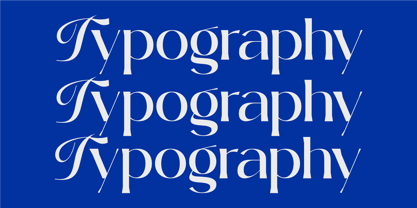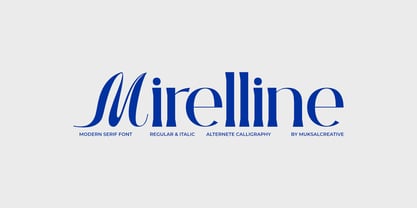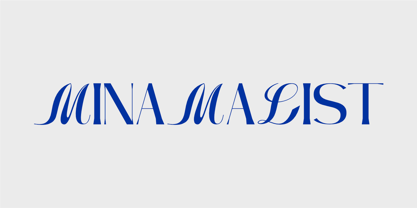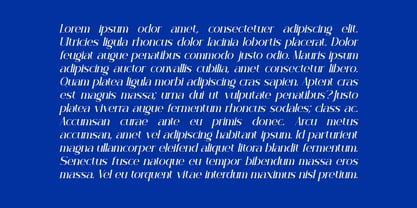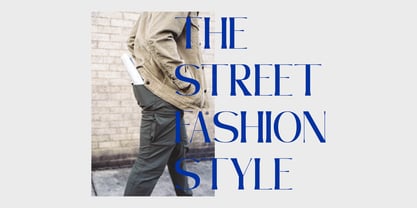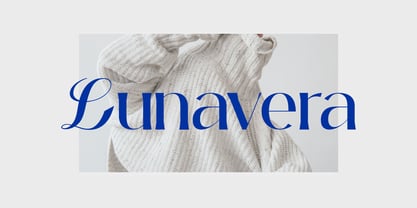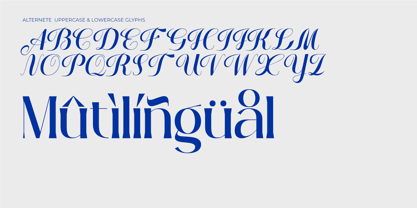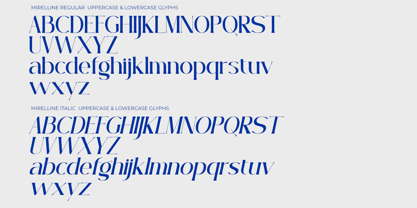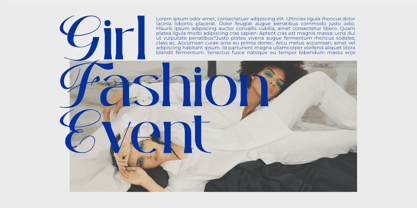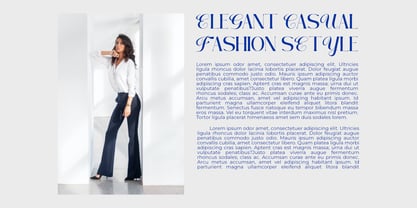
Mirelline
by Muksal Creatives
The Mirelline Font Family was designed by Muksalmina and published by Muksal Creatives. Mirelline contains 2 styles and family package options.
Mirelline is an elegant serif typeface that blends timeless sophistication with artistic flair. Designed in two styles — Regular and Italic, Mirelline features a refined letterform structure with graceful contrast and carefully crafted proportions.
Its distinctive charm lies in the beautifully designed calligraphic alternates, offering a luxurious and poetic touch that’s perfect for editorial headlines, wedding invitations, branding, and other high-end design needs. Whether used in its classic form or with expressive stylistic alternates, Mirelline brings elegance, warmth, and personality to every composition.